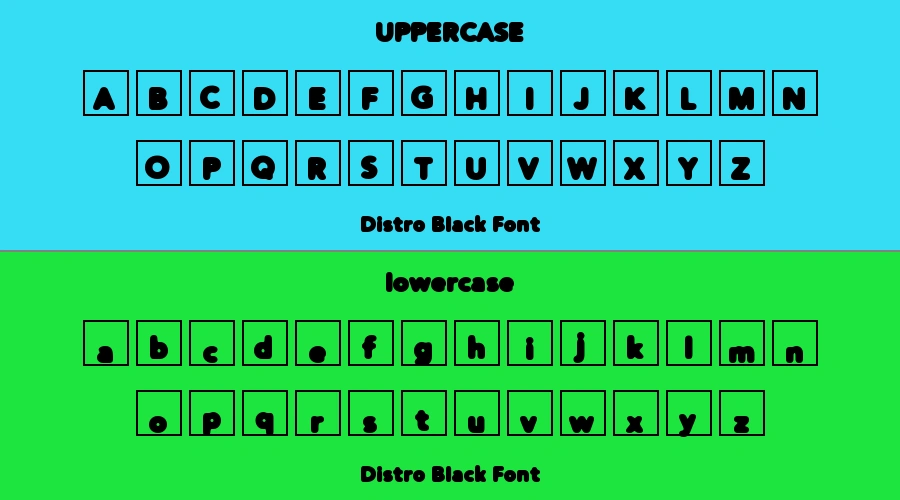
About Distro Black Font
Distro Black Font stands out for its distinctive combination of fluid motion and aesthetic unity. Ideal for product naming, it provides the consistency and technical precision that professional projects demand. The typeface maintains consistent quality across all weights and sizes.
Key features include refined proportions and practical mid-word alternates, enhancing typographic expression. In warning labels applications, Distro Black Font demonstrates exceptional scanning accuracy. The bowl width and scholarly tradition contribute to its distinctive character and professional appeal.